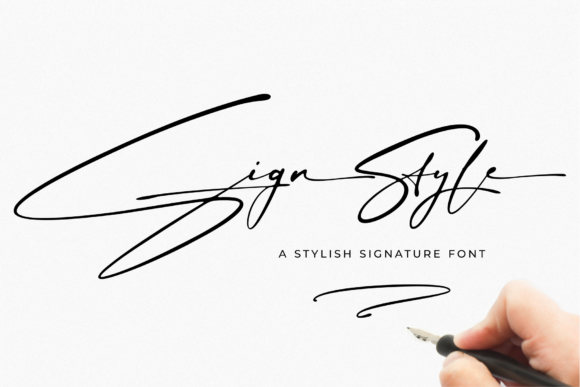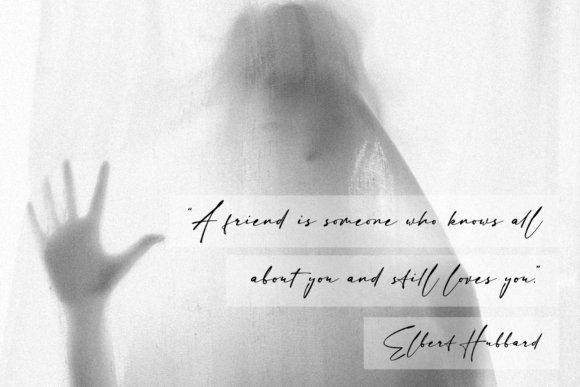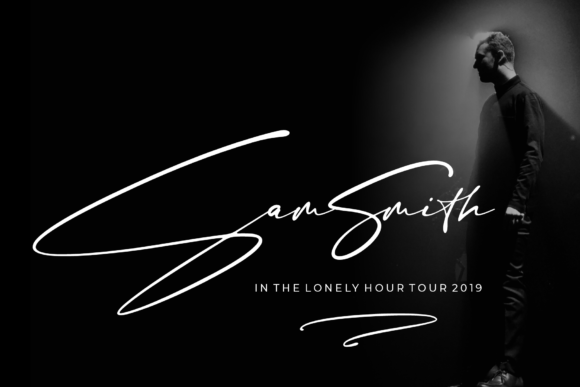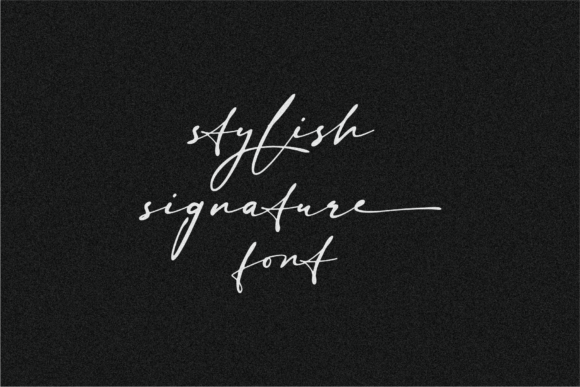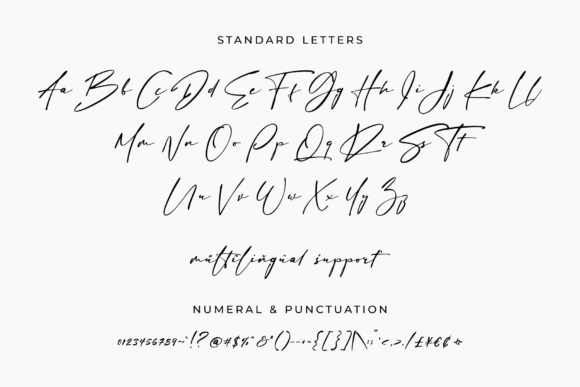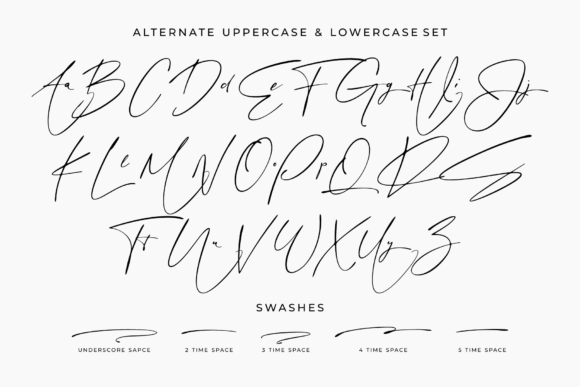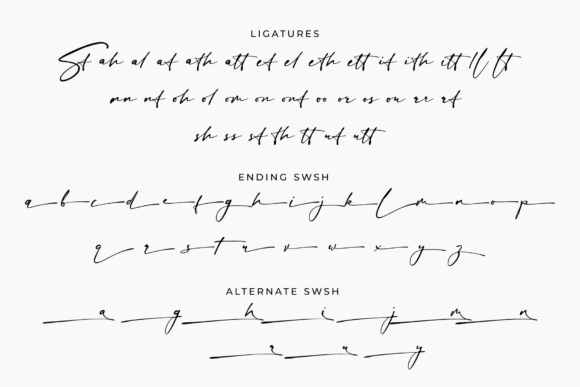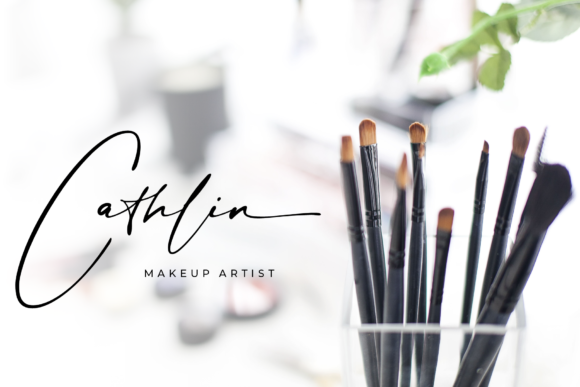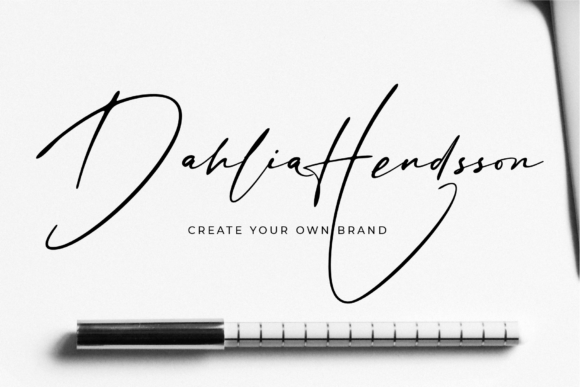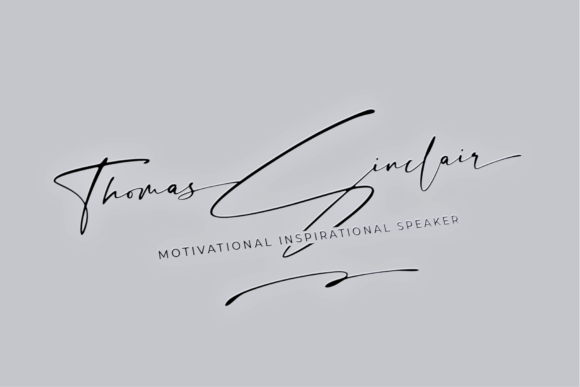
Sign Style Font
About Sign Style Font
Sign Style is a contemporary signature script with rich swashes and bold lines. Get inspired by its authentic charm!